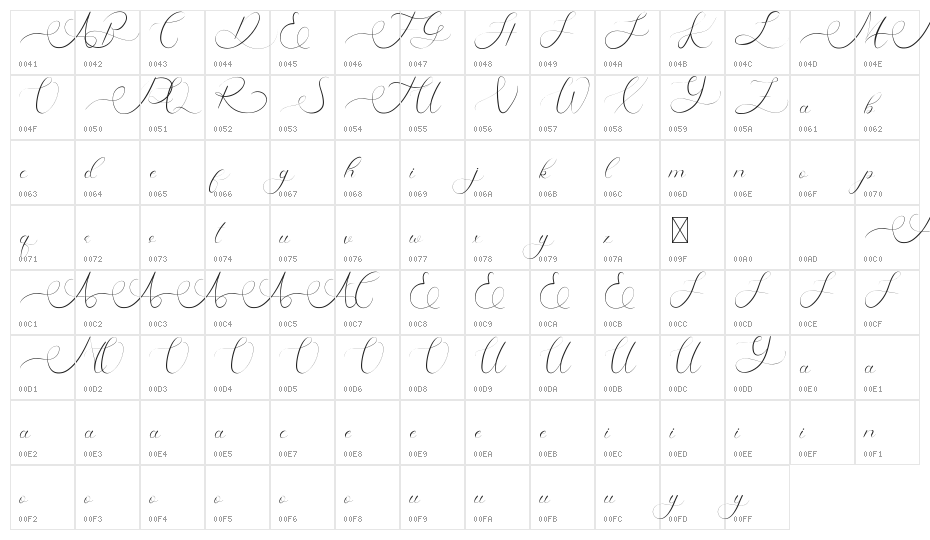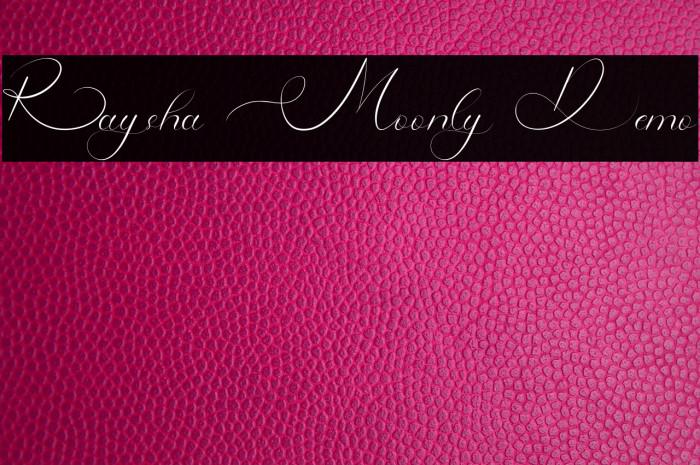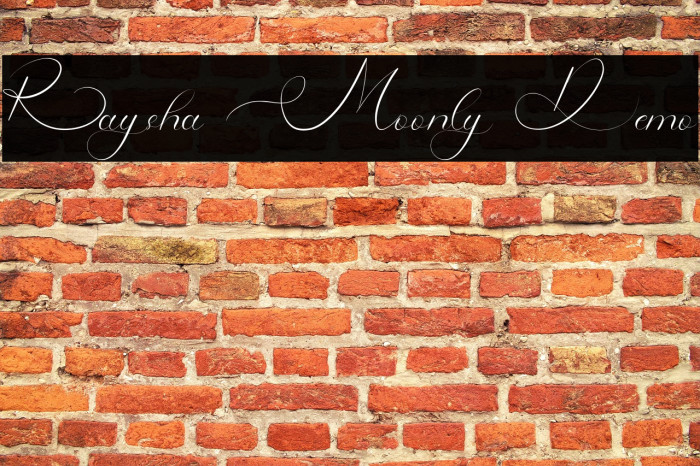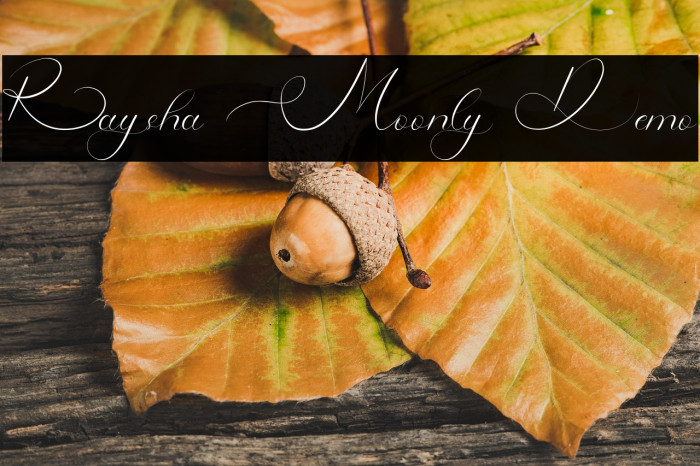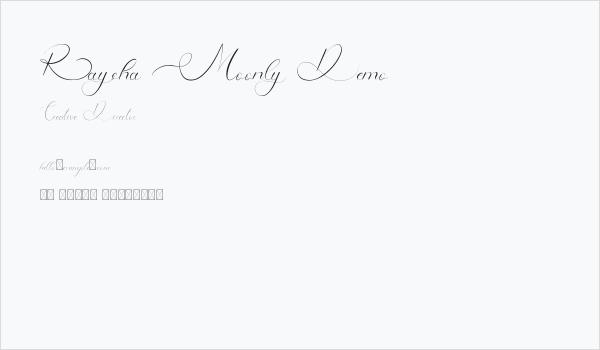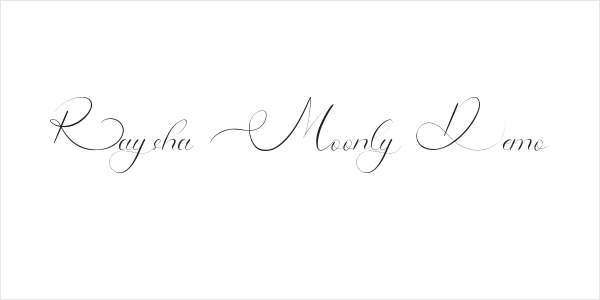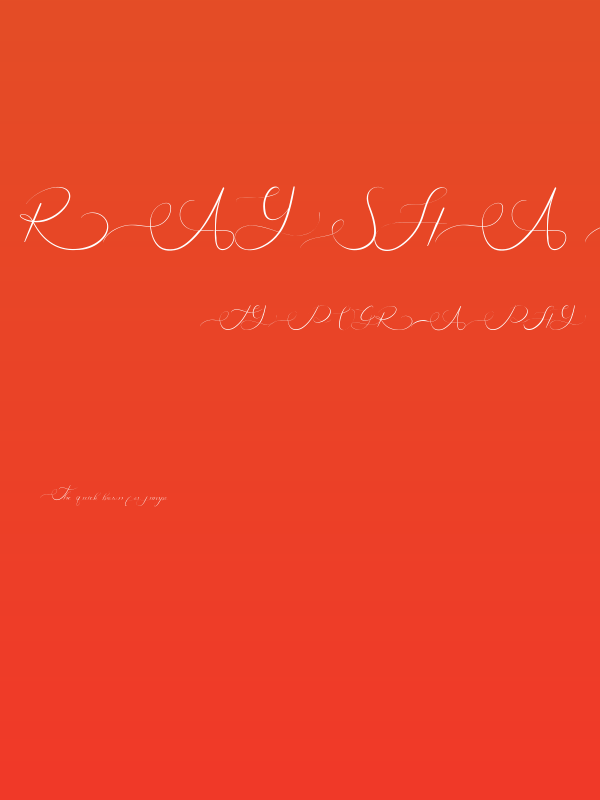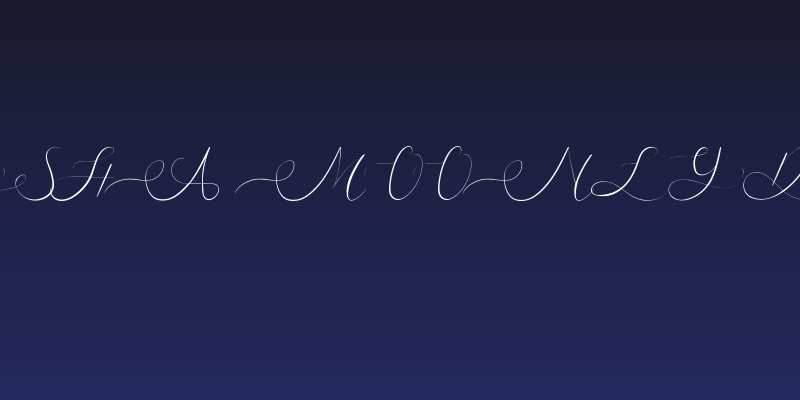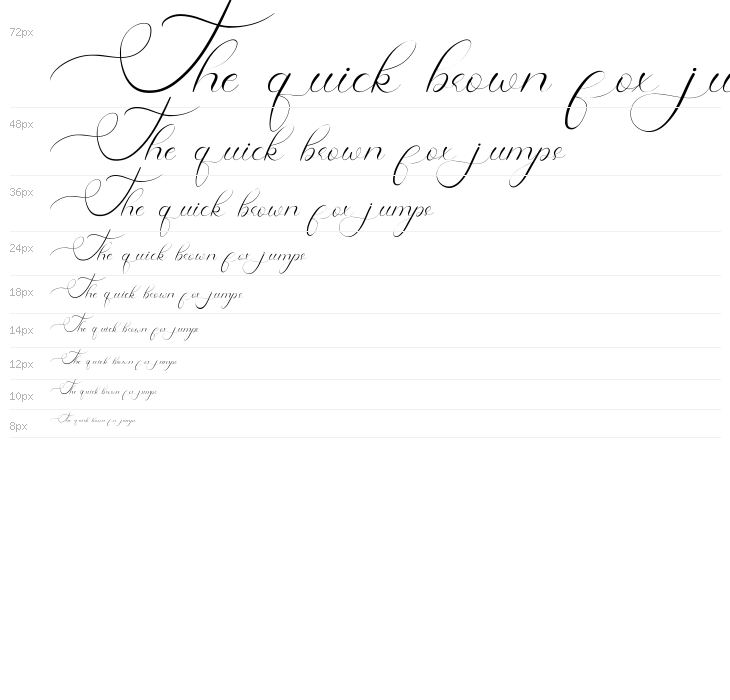
Raysha Moonly Demo Font
Raysha Moonly Demo Description
This elegant script font features intricate and flowing letterforms that exude sophistication and grace. The uppercase letters are adorned with elaborate swashes and loops, creating a sense of movement and fluidity. The lowercase letters maintain a harmonious balance with their delicate curves and refined strokes. This font is perfect for projects that require a touch of elegance and class, such as wedding invitations, luxury branding, and high-end product packaging. Its artistic flair and attention to detail make it a standout choice for any design that aims to convey a sense of beauty and refinement.
| Proposed Projects | Wedding invitations, luxury branding, high-end product packaging. |